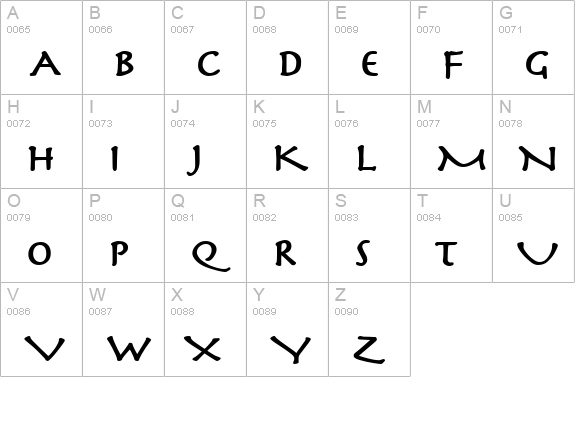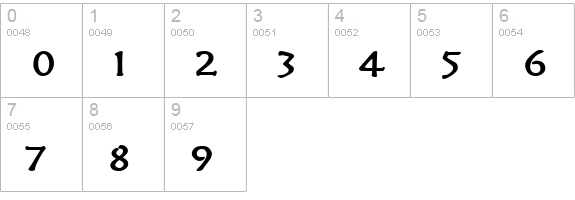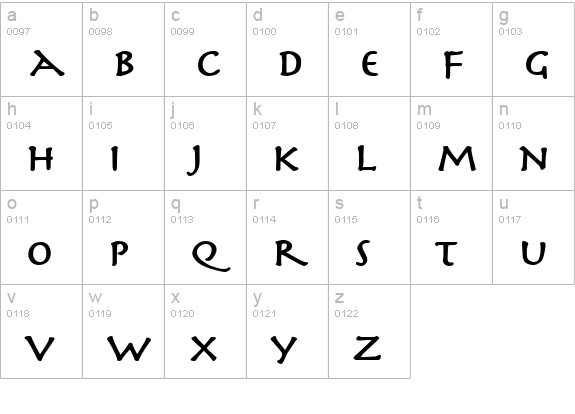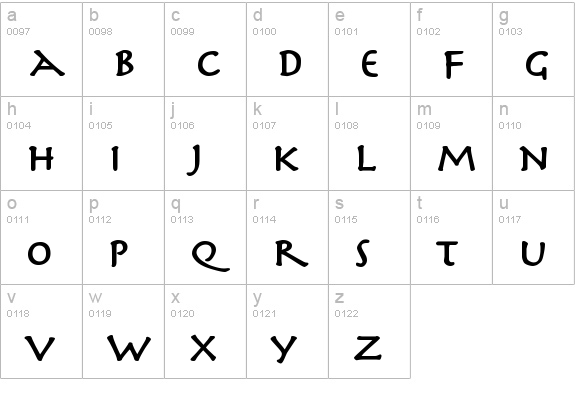
Mythology Wide Bold is a strong, high-contrast, extended-width variant in the Mythology typeface family \xE2\x80\x94 well suited to headlines, attention-grabbing titles, and strong calls-to-action.
Introducing Mythology Wide Bold font, a striking and powerful typeface that evokes the grandeur and mystique of ancient myths and legends. With its bold and wide letterforms, this font exudes a sense of strength and presence, making it perfect for designs that demand attention. Mythology Wide Bold font is not only visually impactful but also highly versatile, suitable for a wide range of design projects including posters, headlines, branding, and more. Its timeless appeal and unique character will add a touch of mythical charm to any creative endeavor. Best of all, Mythology Wide Bold font is available for free download at FontsMarket.com, allowing you to unleash your creativity without any limitations. Don't miss out on this fantastic opportunity to elevate your designs with the enchanting allure of Mythology Wide Bold font. Download it today and embark on a journey into the realms of imagination and legend.